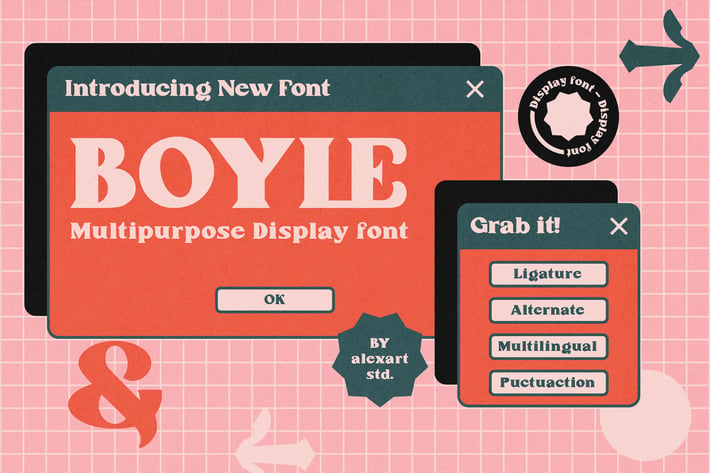
Boyle Display Font
Boyle Display Serif Font
This all caps font is suitable for posters, magazines, apparels, movie headlines, packaging and more.
- alternate
- multilingual
- puctuaction